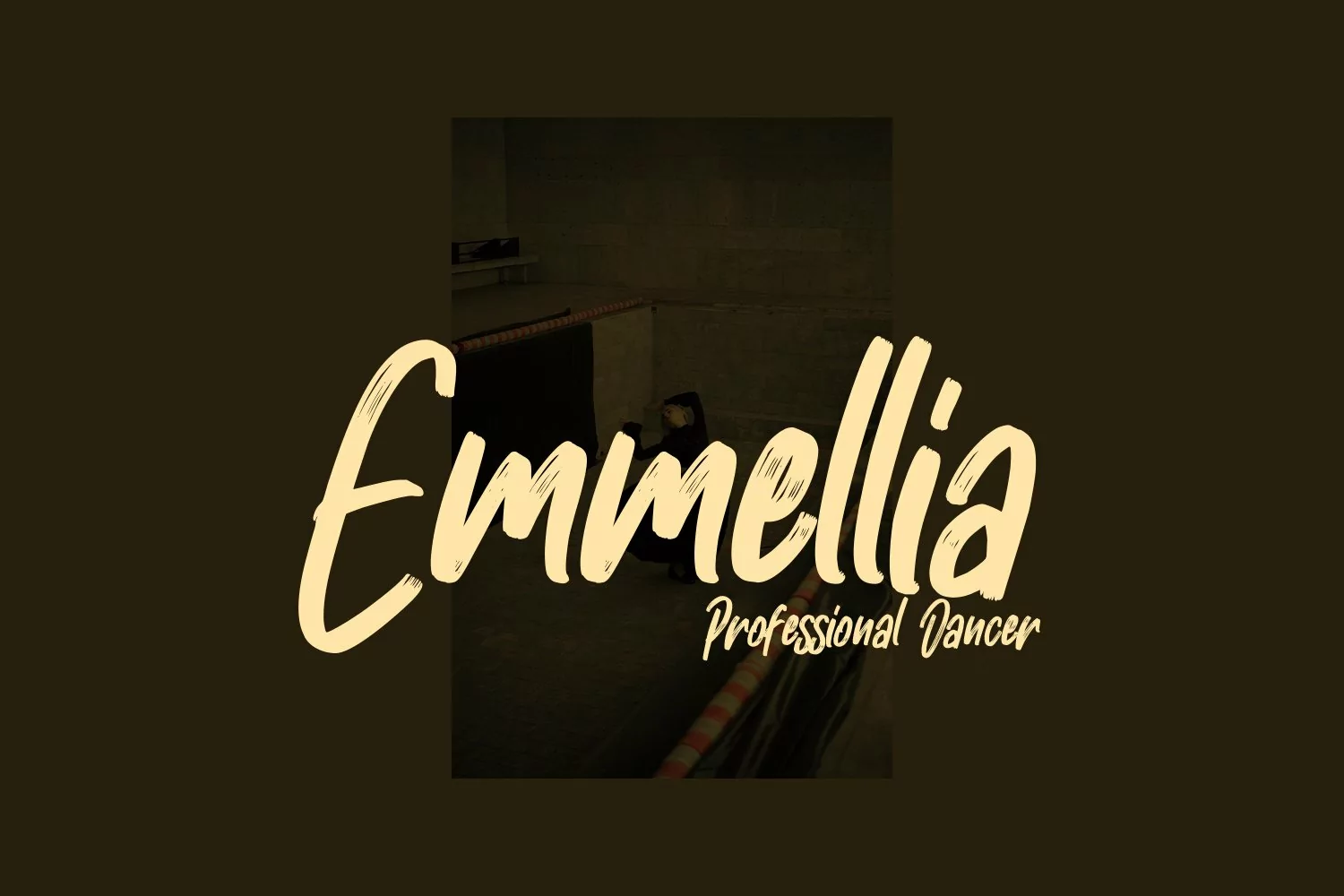
Affectsides is brush script font. With natural feel brush stroke, slanted and fun character with a bit of ligatures and Alternate lowercases. To give you an extra creative work. Affectsides font support multilingual more than 100+ language. This font is good for logo design, Social media, Movie Titles, Books Titles, a short text even a long text letter and good for your secondary text font with sans or serif. Make a stunning work with Affectsides font.